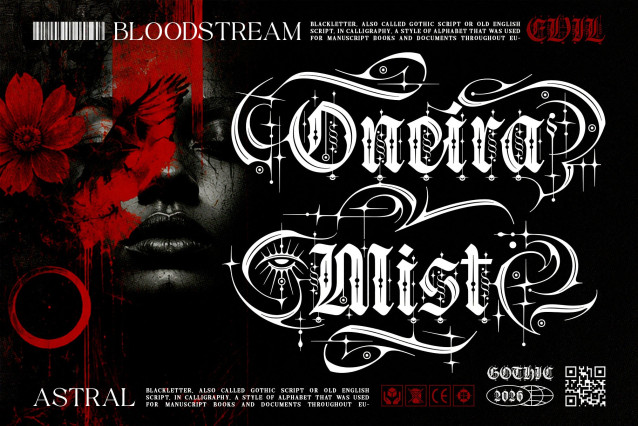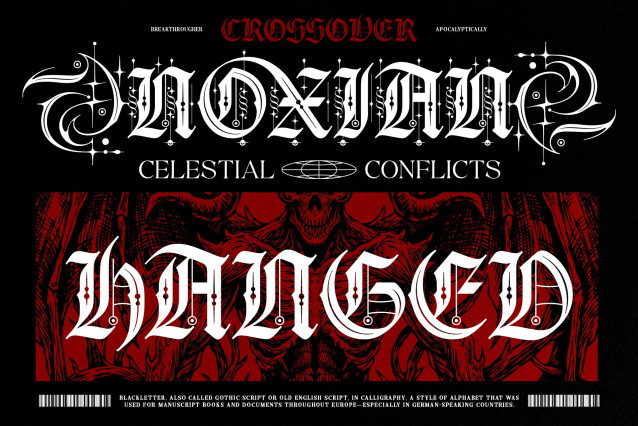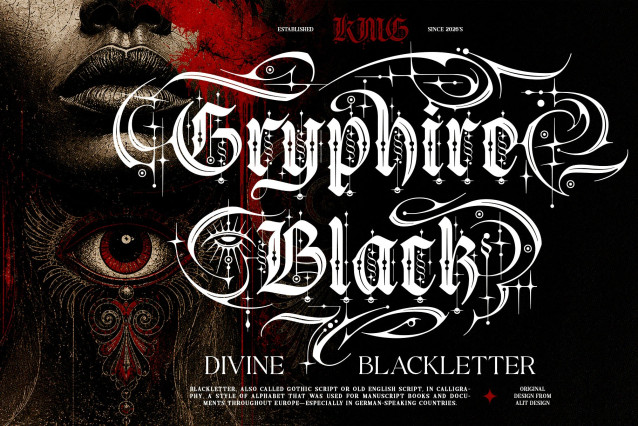
Gryphire Black Font
Gryphire Black – Divine Blackletter Typeface
Introducing Gryphire Black, a divine blackletter typeface that masterfully balances classic gothic typography with a striking, dark mystical aesthetic. Meticulously crafted to make a bold statement, Gryphire Black breathes life into the traditional old English script by injecting it with intricate, ornate details, sharp edges, and celestial accents.
Perfect for designers looking to channel a rebellious, dark, or vintage vibe, this font is the ultimate choice for tattoo studio branding, heavy metal band merchandise, streetwear apparel, occult-themed designs, gothic posters, and striking logotypes.
What sets Gryphire Black apart is its massive character set. Packed with a staggering 1,069 glyphs, this typeface offers unparalleled creative freedom. It features an extensive collection of stylistic alternates (SS01 to SS10), elegant ligatures, and intricate swashes, allowing you to customize every word to perfection and create truly unique, custom-looking typography.